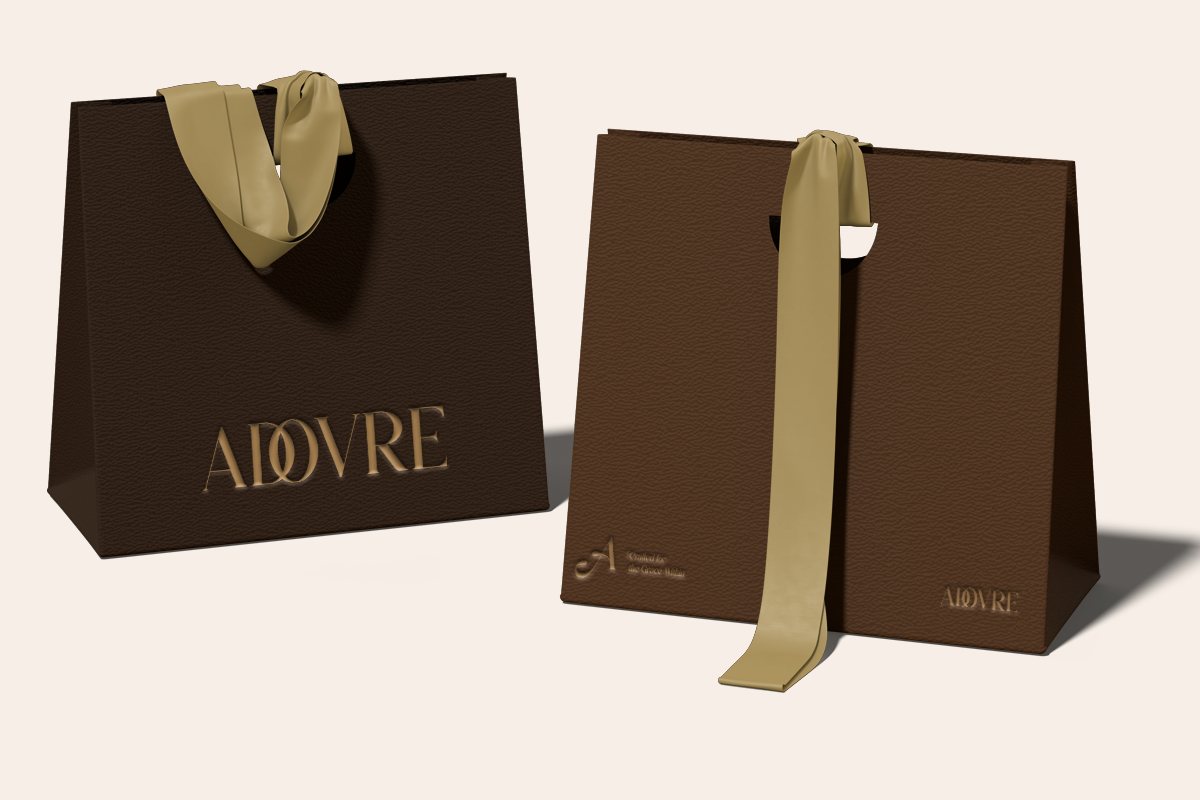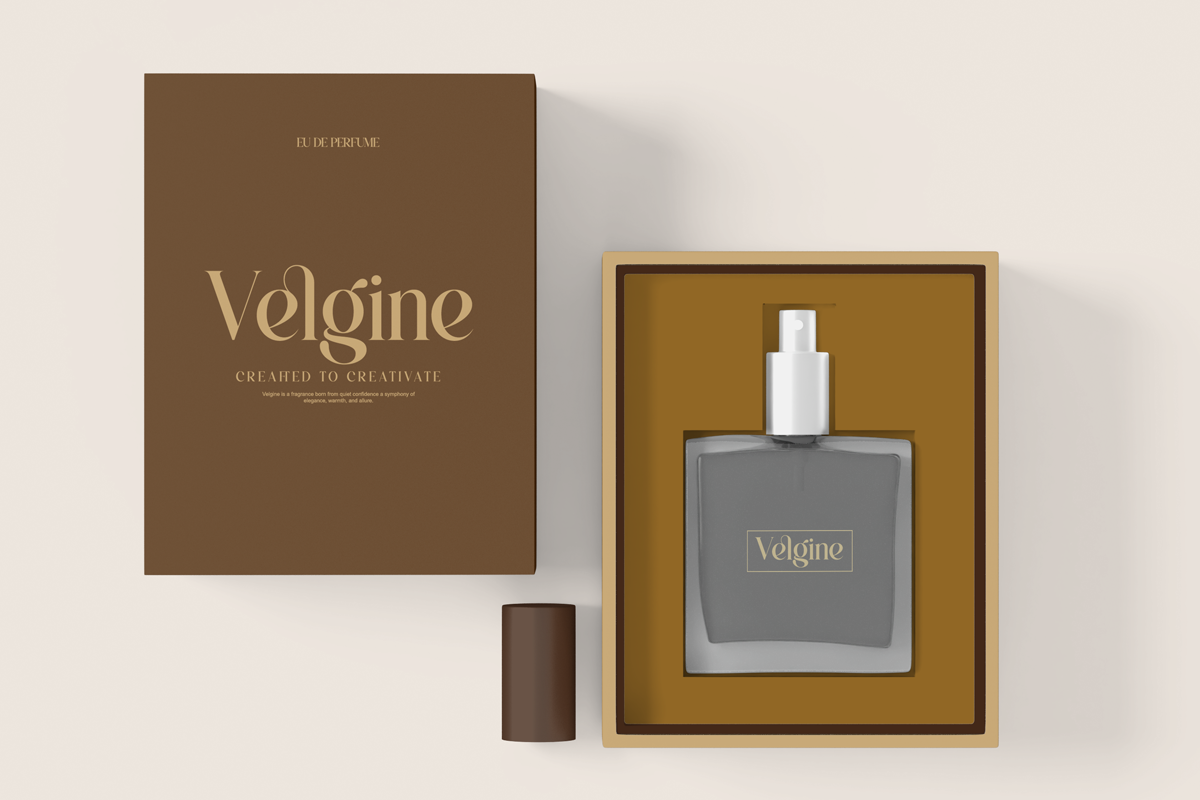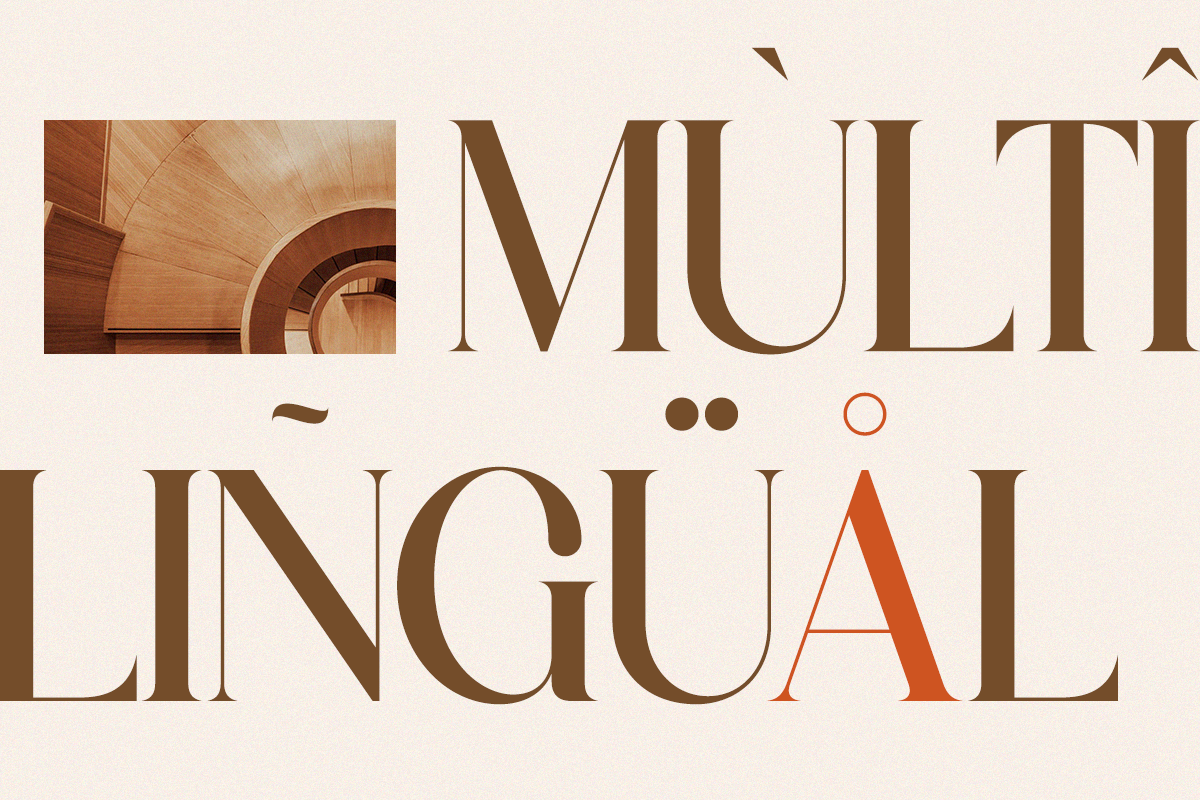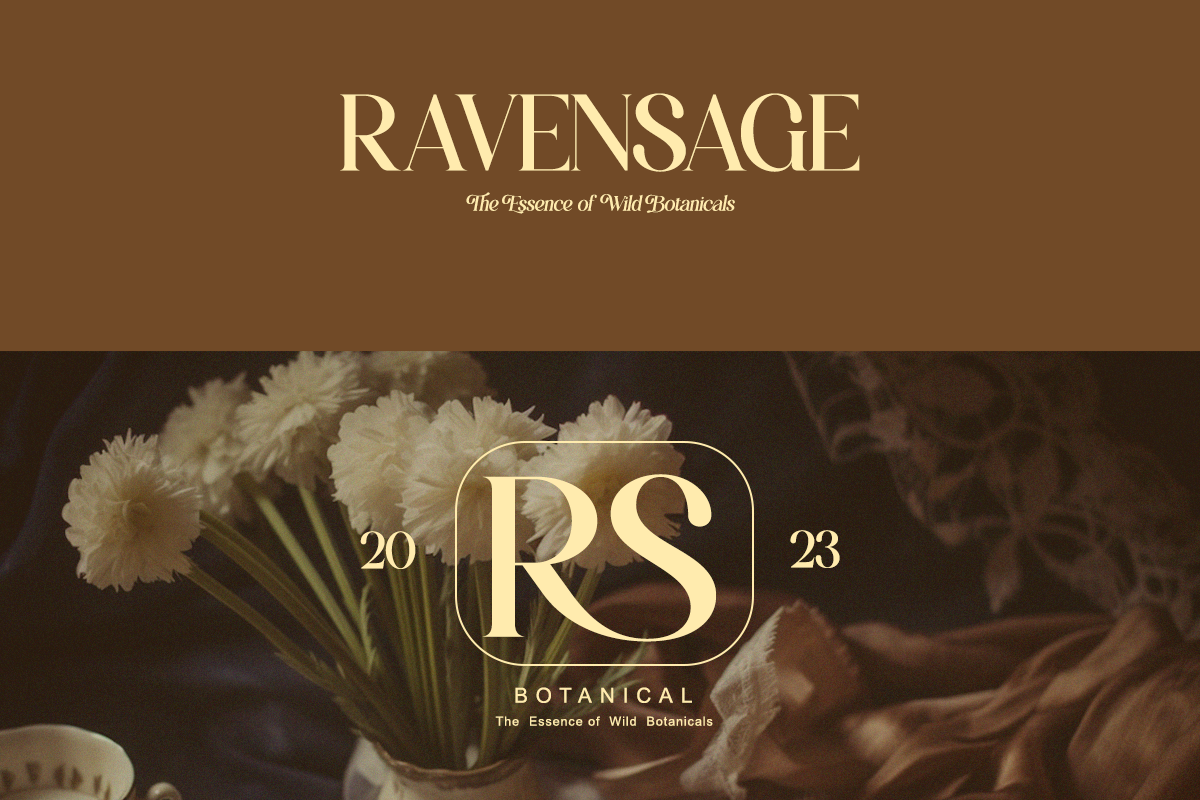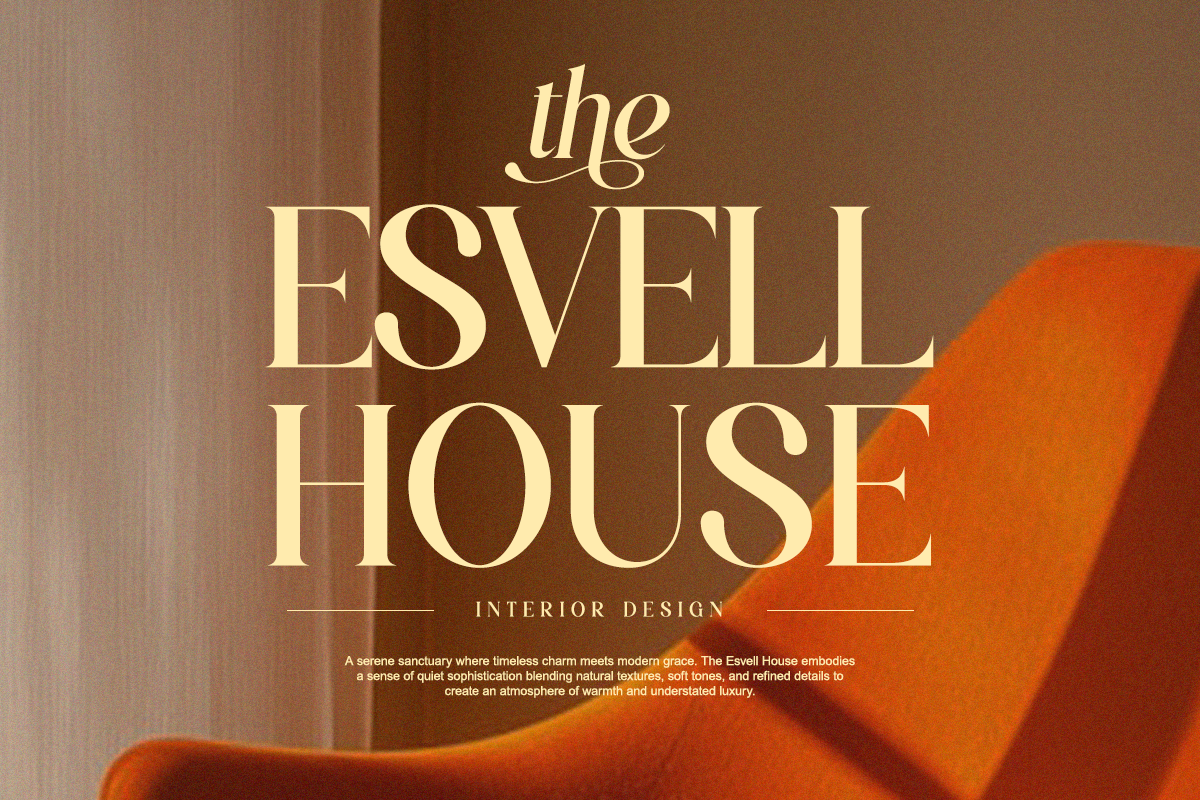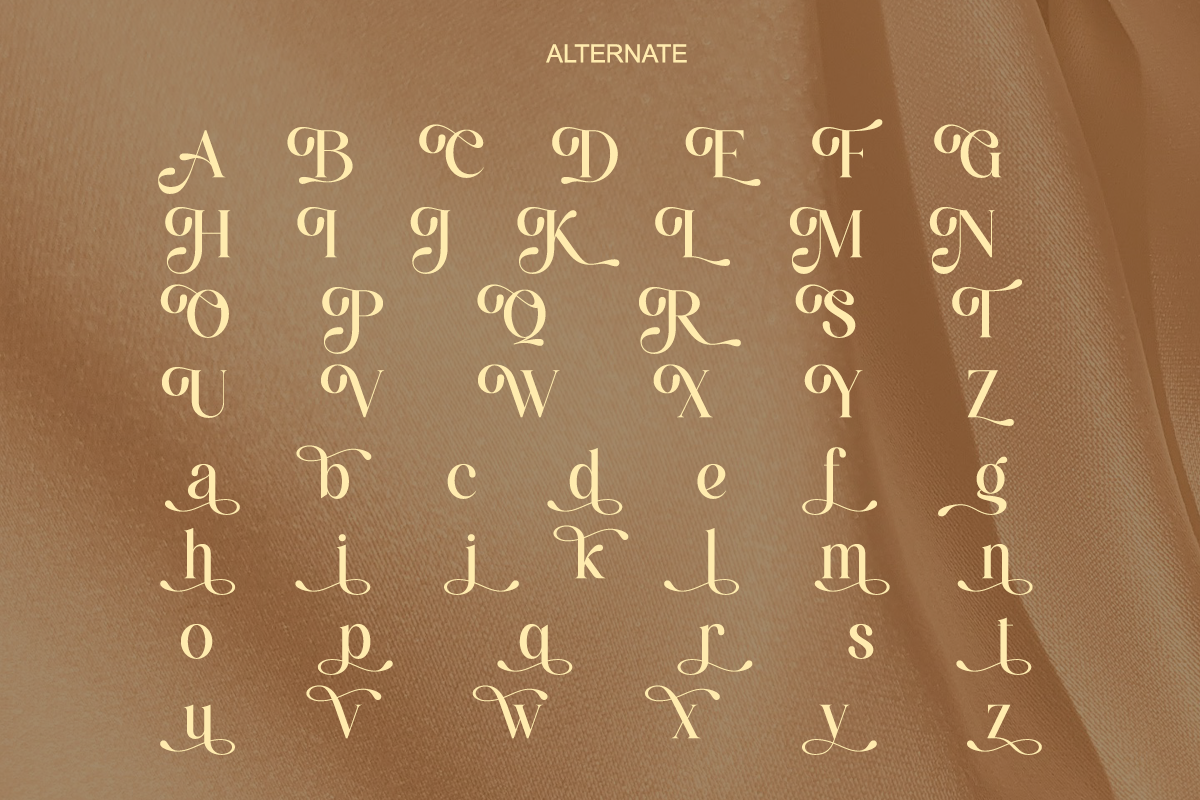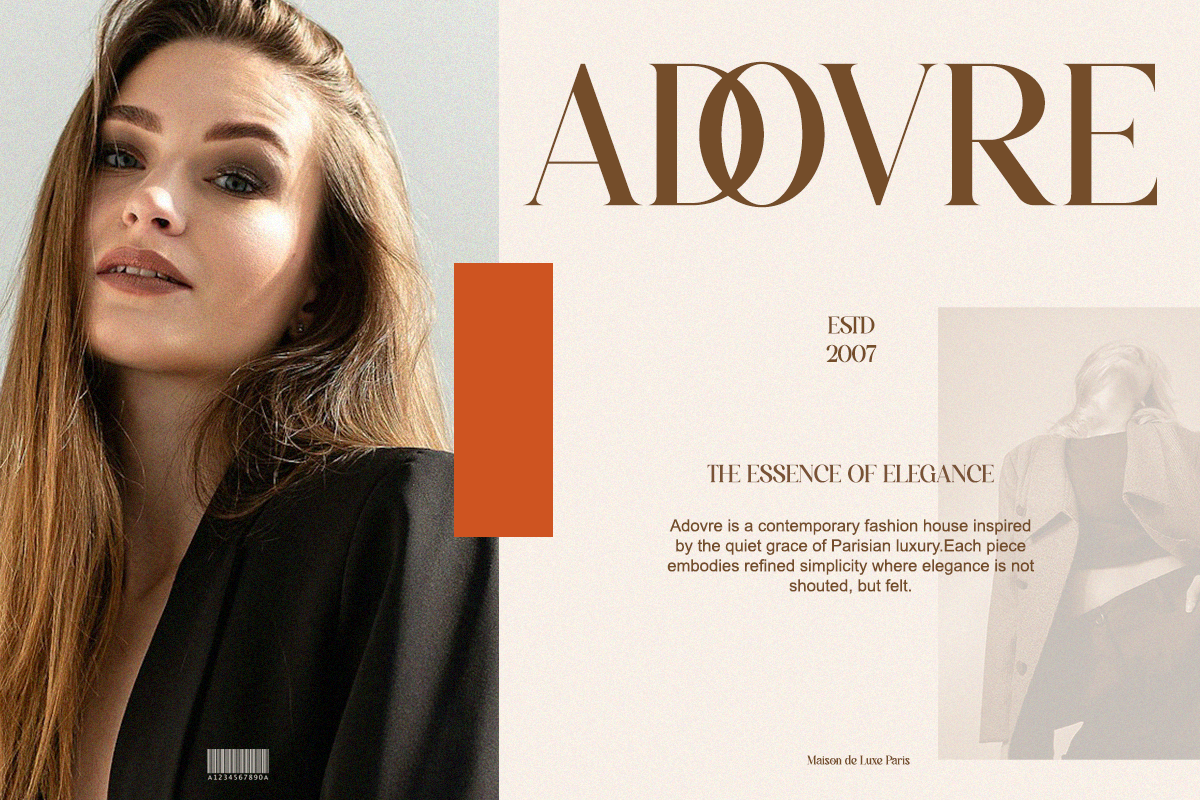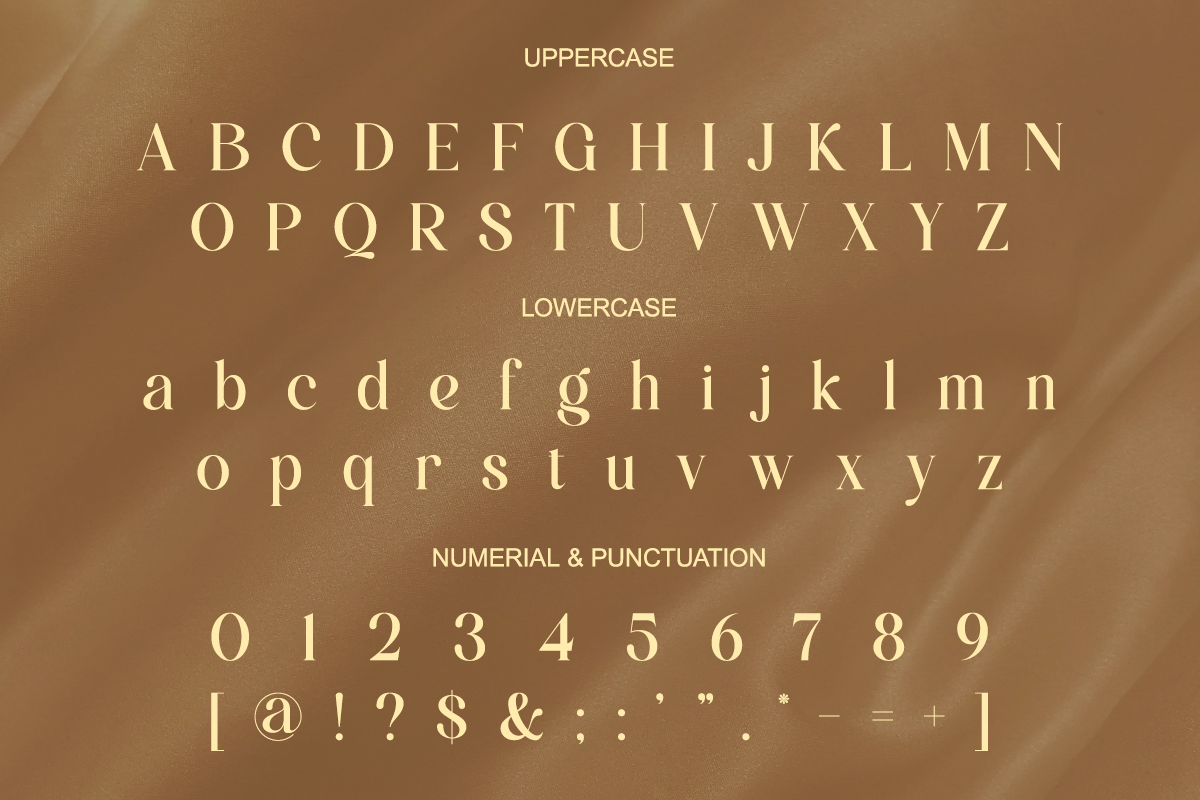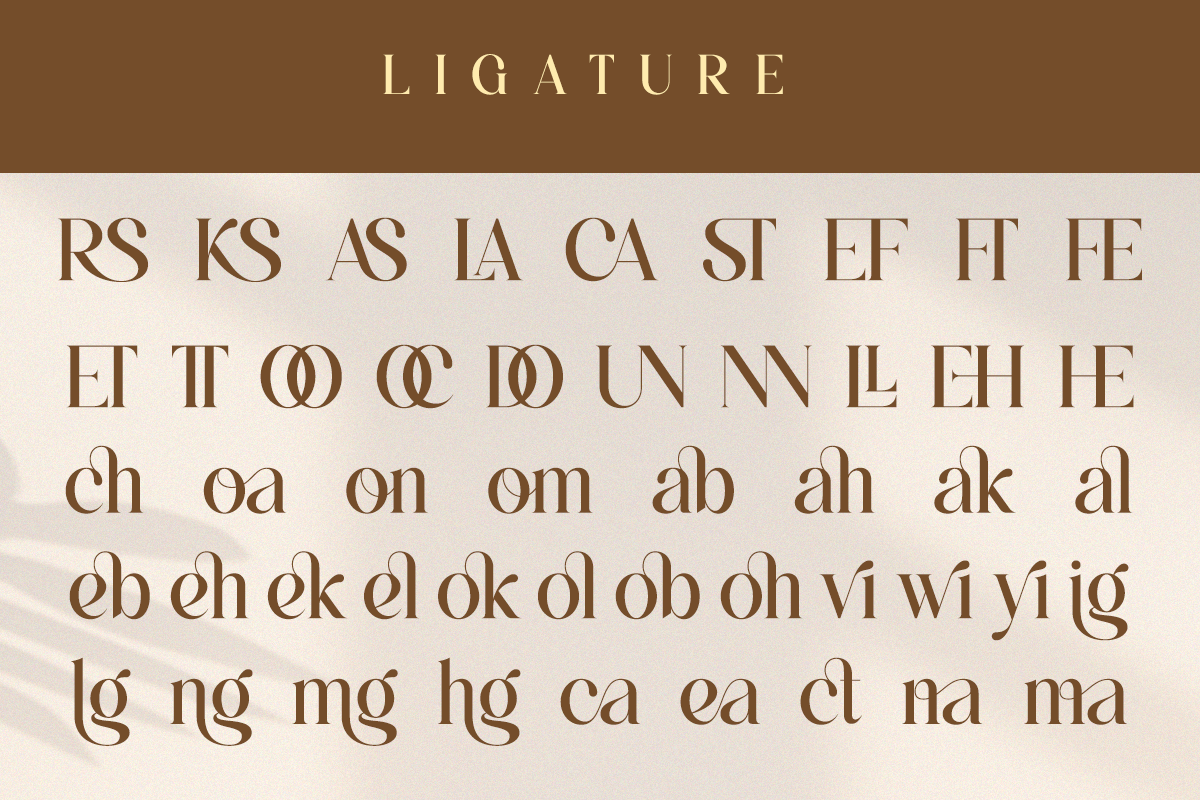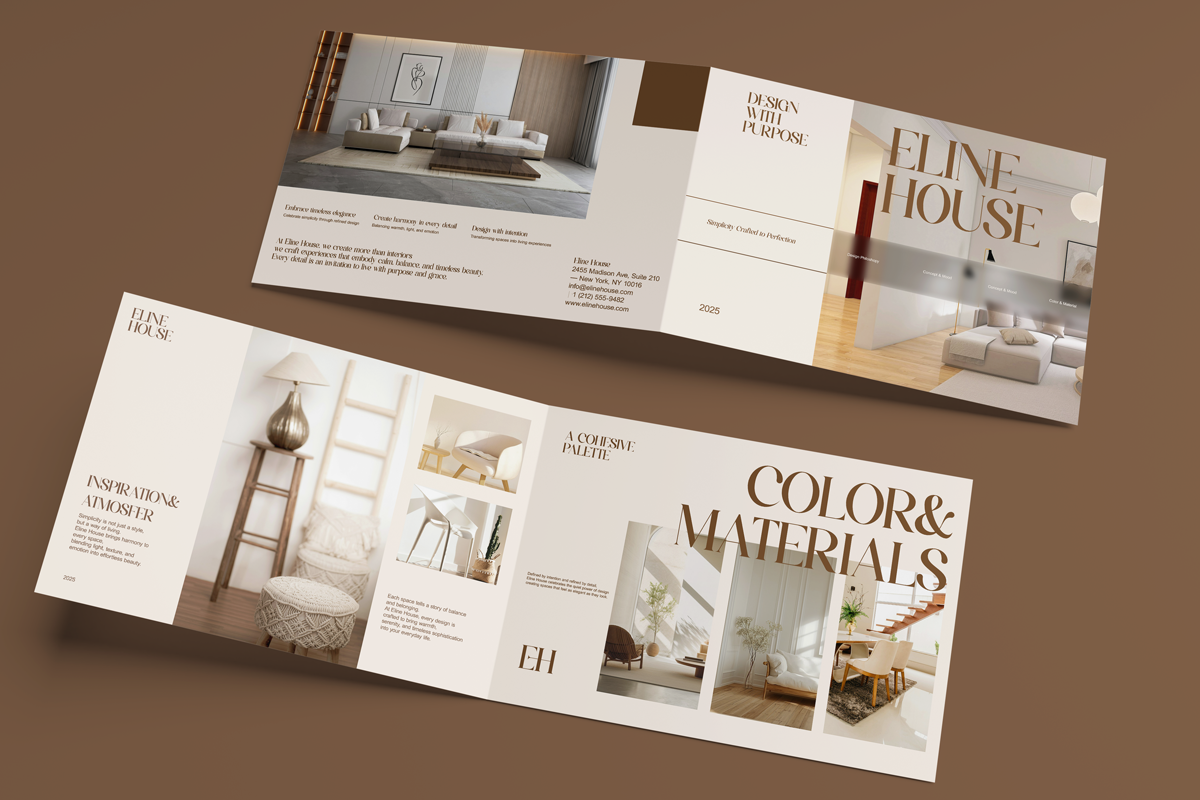
Kealuna - Elegant Luxury Serif Font
Meet Kealuna, a luxury serif font created to bring elegance and warmth into modern design. With beautiful ligatures and smooth curves, Kealuna feels graceful, premium, and timeless.
Perfect for designers working on fashion brands, beauty products, wedding stationery, and editorial layouts that require a sophisticated serif voice.
- Regular & Italic
- Full uppercase & lowercase
- Alternates & ligatures
- Elegant contrast strokes
Perfect For Luxury branding, fashion logos, beauty brands, wedding invitations, editorial headlines, packaging, and social media design.